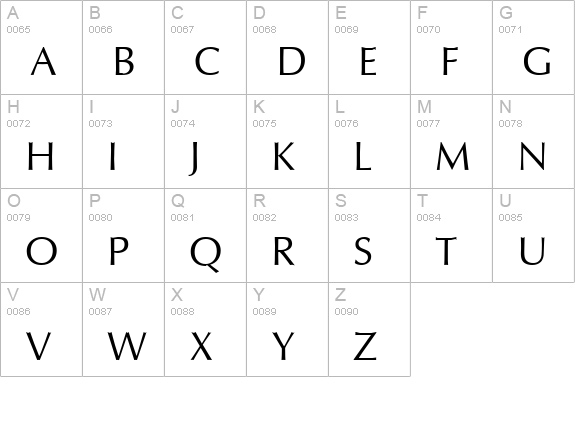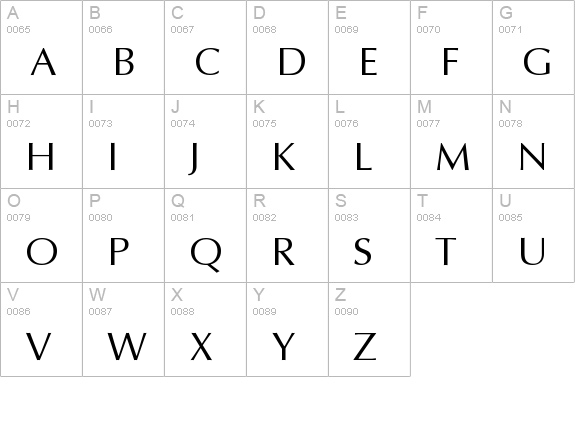
TR Oregon Font Details
TR Oregon is a modern and versatile font that exudes elegance and sophistication. With its clean lines and stylish curves, this typeface is perfect for a wide range of design projects, from branding to editorial design. The font comes in various weights and styles, making it easy to adapt to different design needs. What sets TR Oregon apart is not only its aesthetic appeal but also the fact that it is available for free. Yes, you read that right - this stunning font can be downloaded for free at FontsMarket.com. Whether you're a seasoned designer looking to add a fresh touch to your projects or a newcomer eager to experiment with typography, TR Oregon is a must-have in your font collection. Don't miss out on the opportunity to elevate your designs with this beautiful and versatile font. Download TR Oregon today and let your creativity soar!